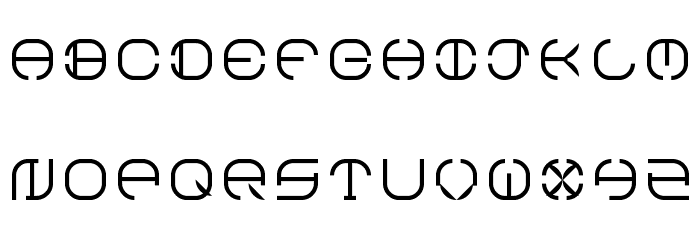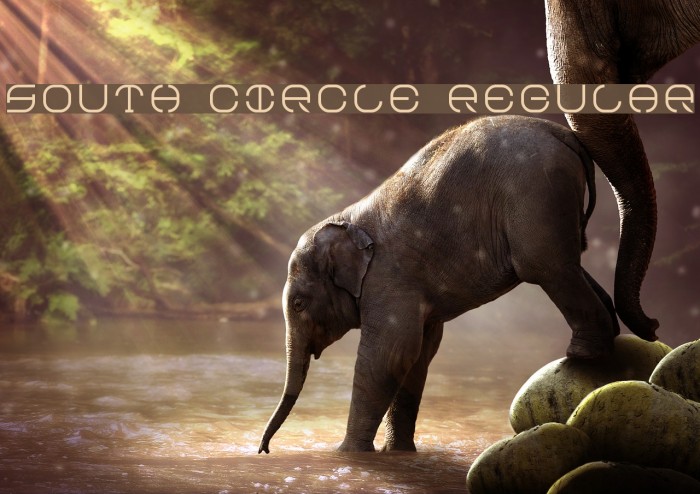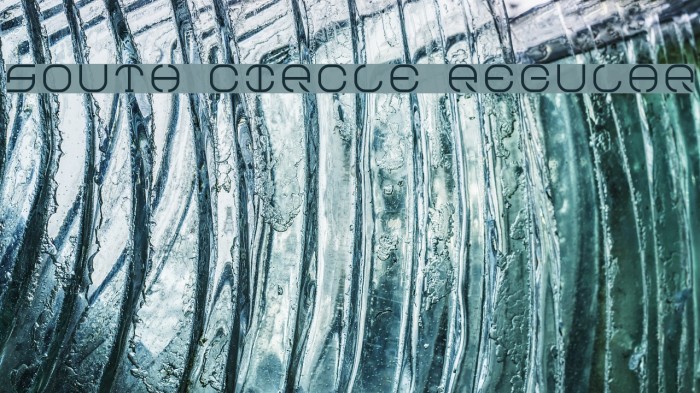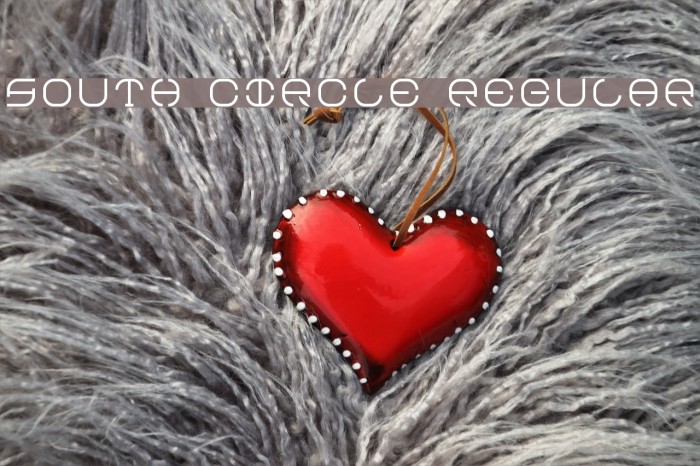
South Circle Regular Font
This font features a unique and modern design with a geometric and circular motif. Each character is crafted with a combination of straight lines and curves, creating a futuristic and abstract appearance. The letters are distinct and bold, with a consistent stroke width that gives the font a uniform look. The special characters maintain the geometric theme, adding to the overall cohesive style. This font stands out with its innovative design, making it suitable for creative and contemporary projects.
A modern, geometric font with circular and abstract elements.
- Proposed Projects: Ideal for branding, logos, posters, and digital media that require a modern and futuristic touch.